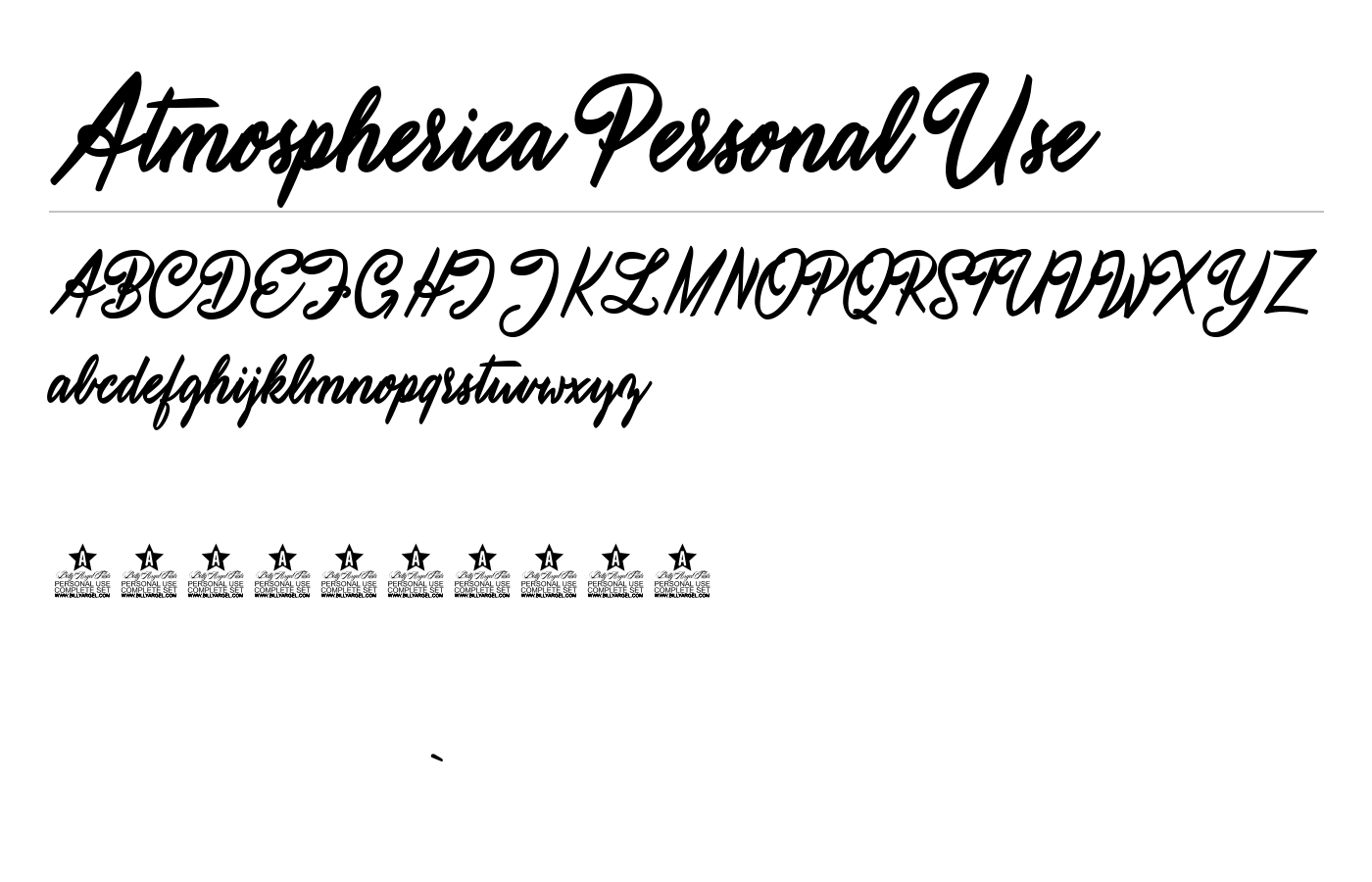
Atmospherica Personal Use is a stylish script font characterized by its smooth, flowing letterforms and lively cursive style. Its medium weight and elegant, slightly condensed structure make it ideal for adding a personal, handwritten touch to invitations, branding, and creative projects where a warm and sophisticated feel is desired. This font shines in headline and decorative uses, lending a sense of charm and personality without sacrificing readability.
Atmospherica Personal Use Font
About Atmospherica Personal Use Font
| Font family | Atmospherica Personal Use Font |